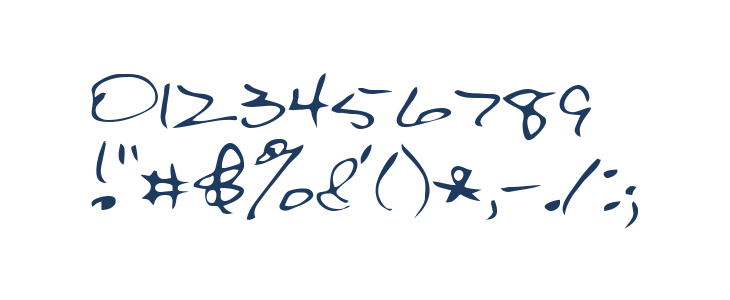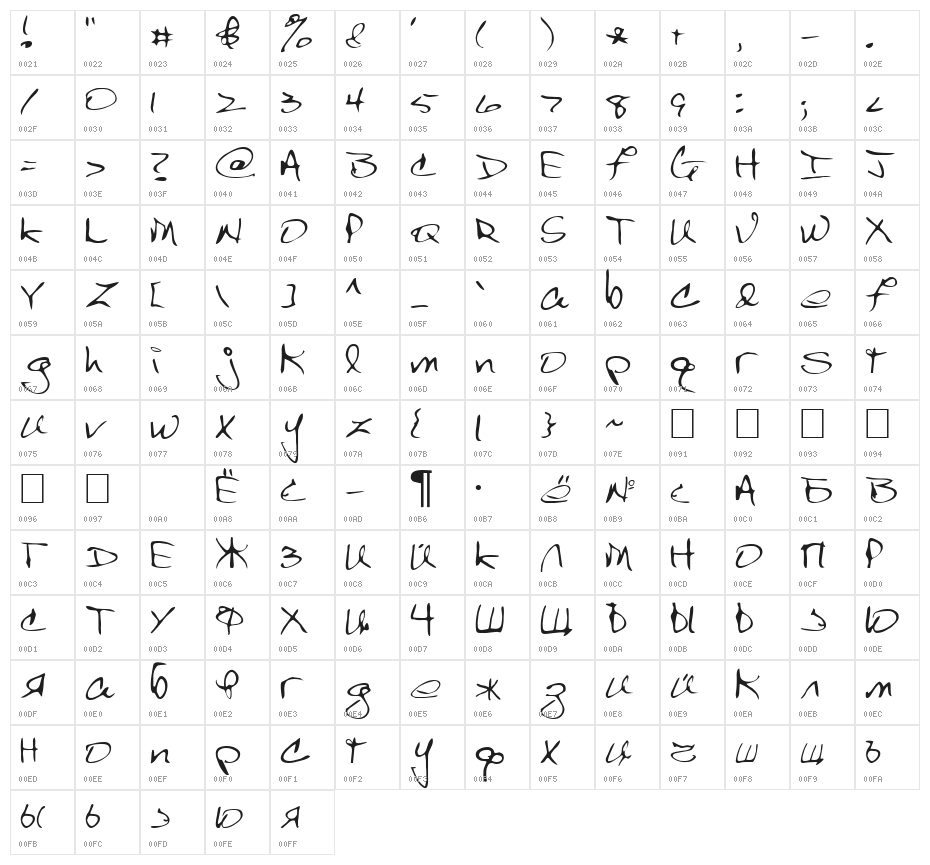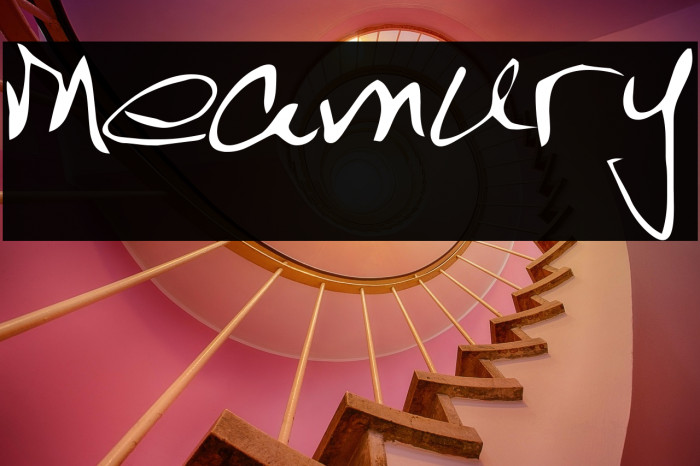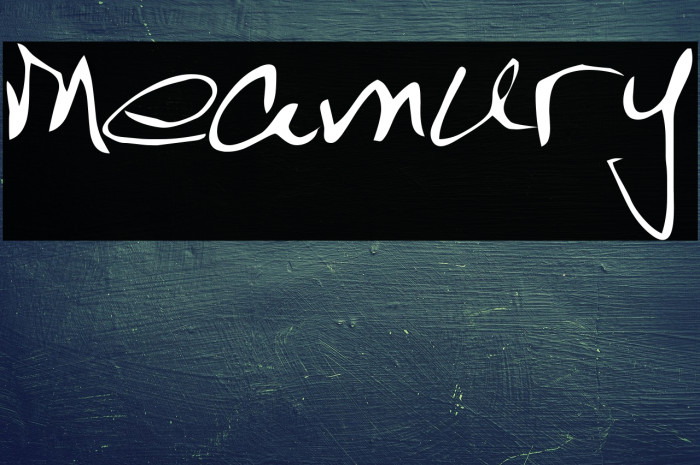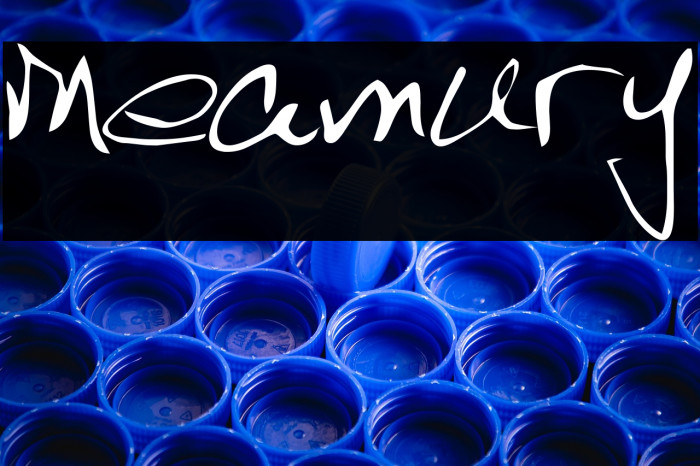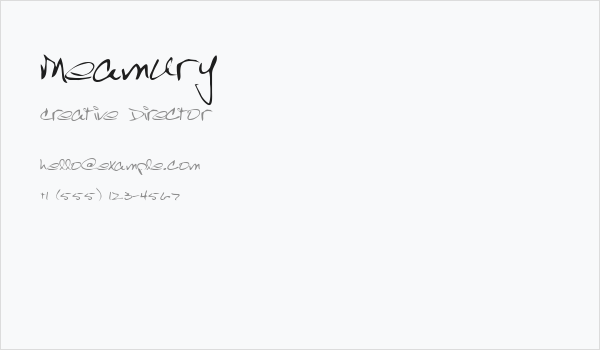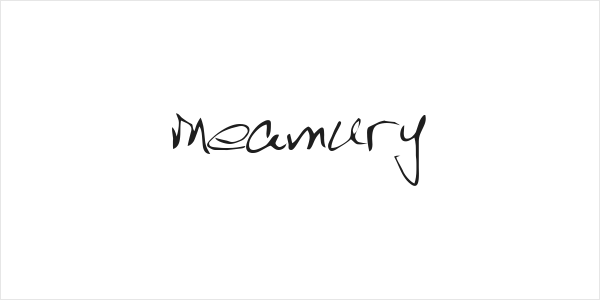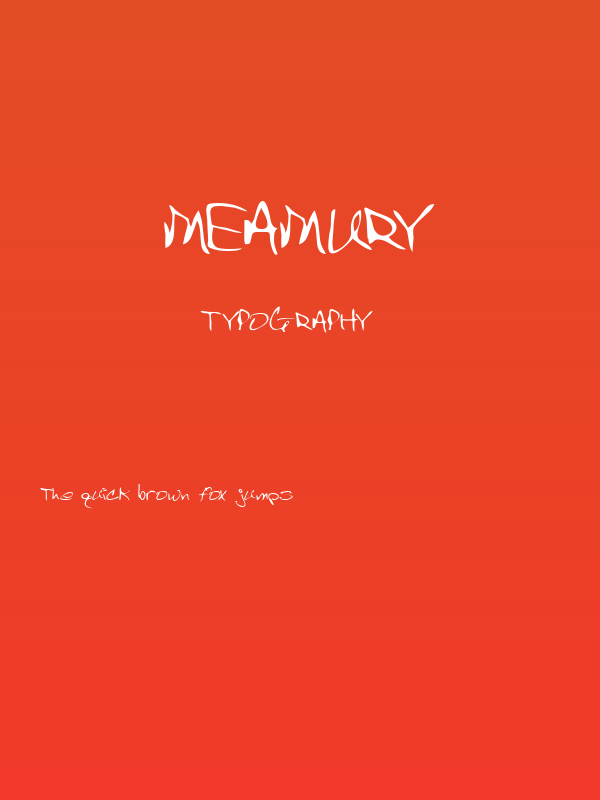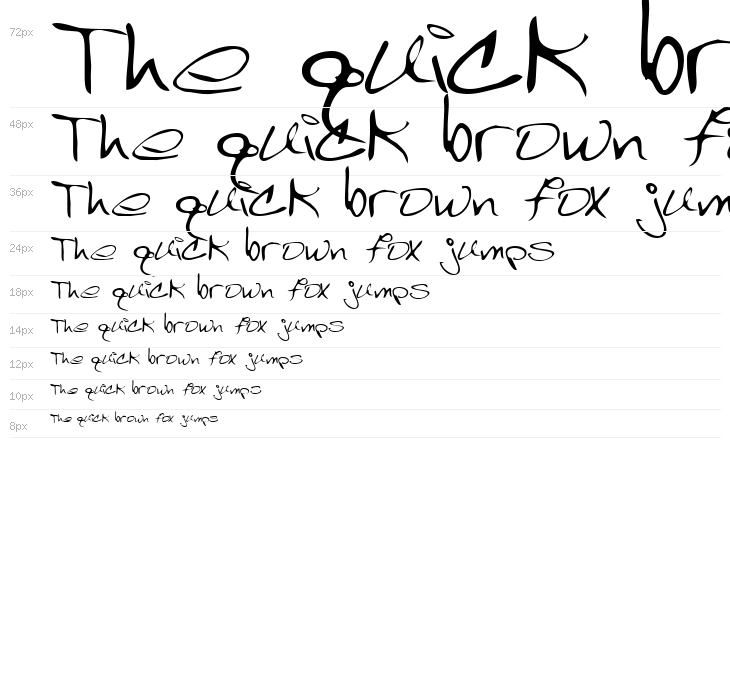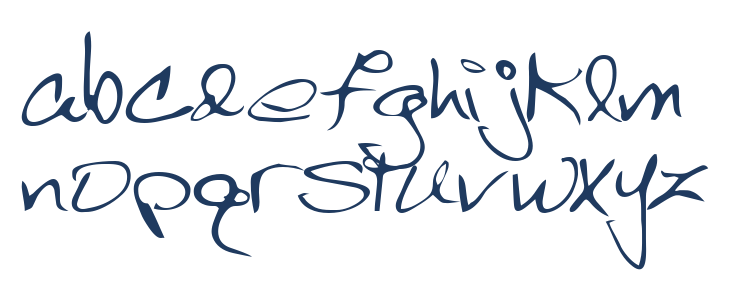
Meamury Font
Meamury Description
This font exhibits a dynamic and expressive style, characterized by its fluid, handwritten appearance. The letters are crafted with a sense of motion, featuring irregular strokes and varying thicknesses that give it a lively, artistic feel. The uppercase and lowercase letters maintain a consistent style, with some characters displaying unique flourishes and loops. Numbers and special characters are designed to match the overall aesthetic, ensuring a cohesive look across all text. This font is ideal for projects that require a personal touch, such as invitations, greeting cards, or artistic branding.
| Overall Style | Artistic |
| Use Case | Logos, Headlines, Creative projects |
| Proposed Projects | Ideal for invitations, greeting cards, artistic branding, and creative projects. |